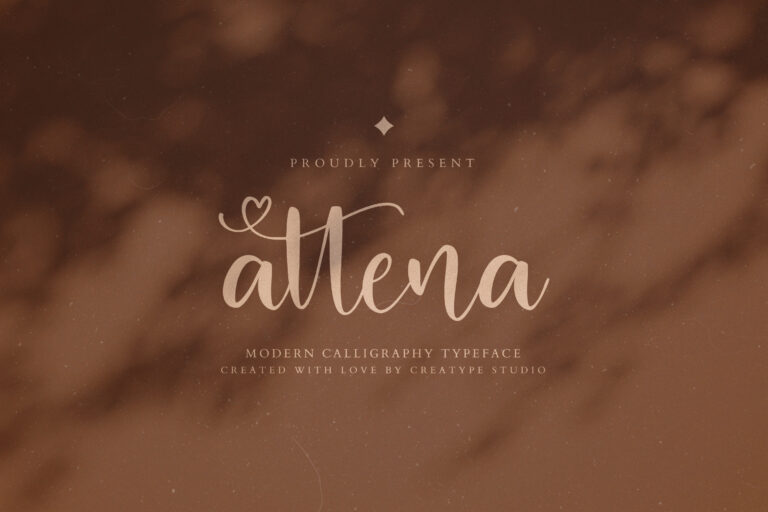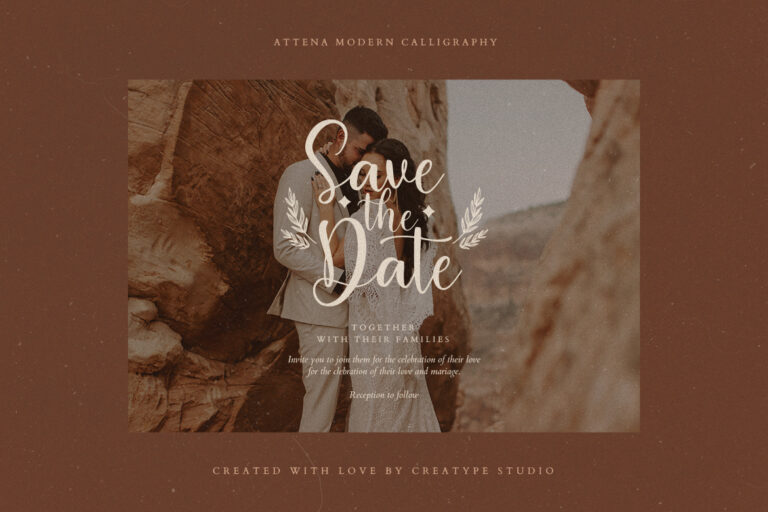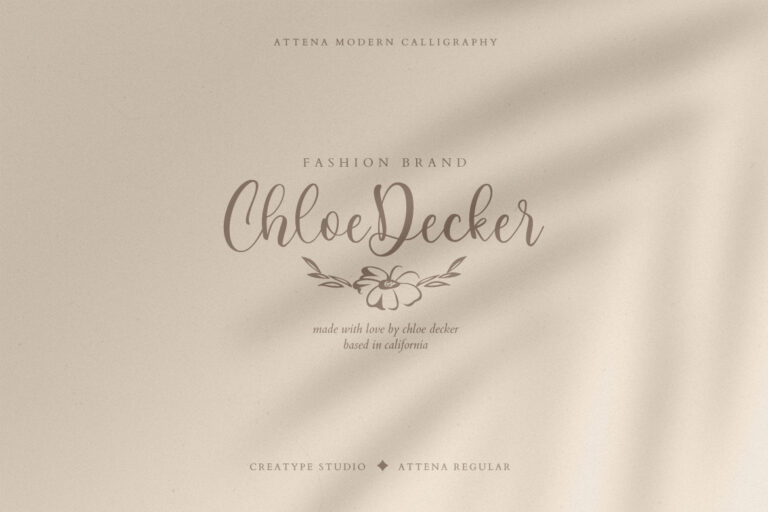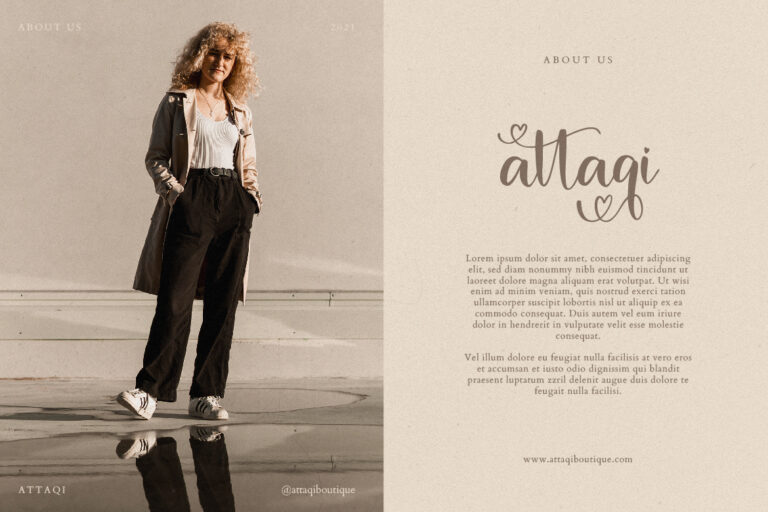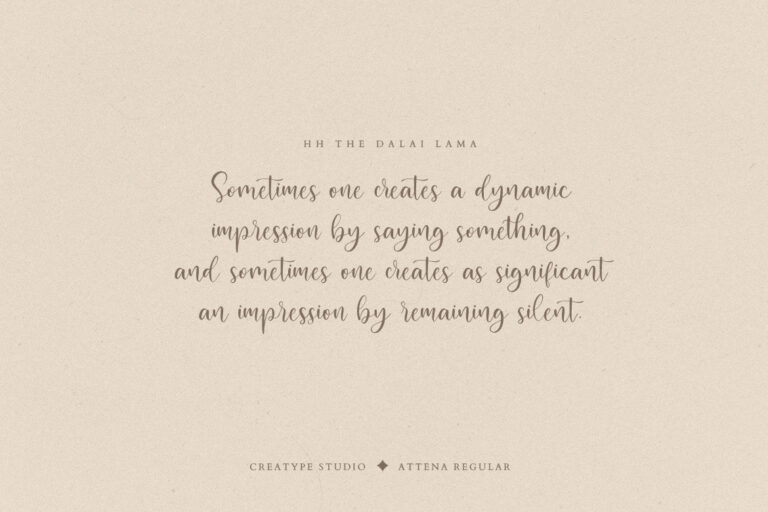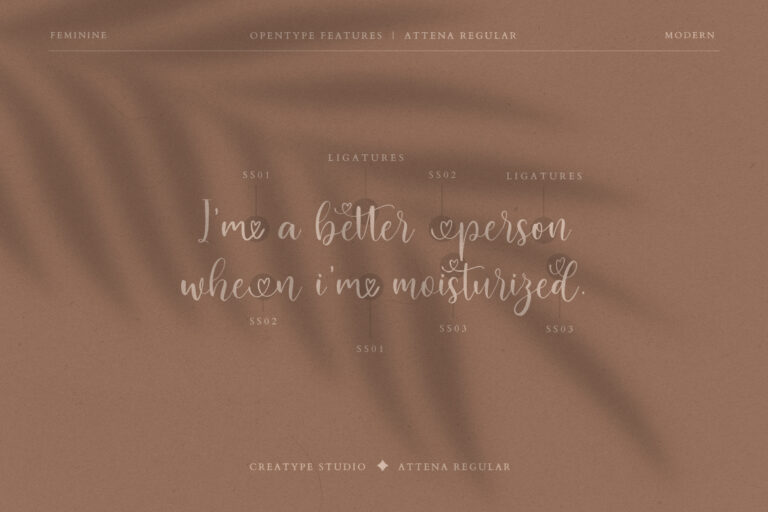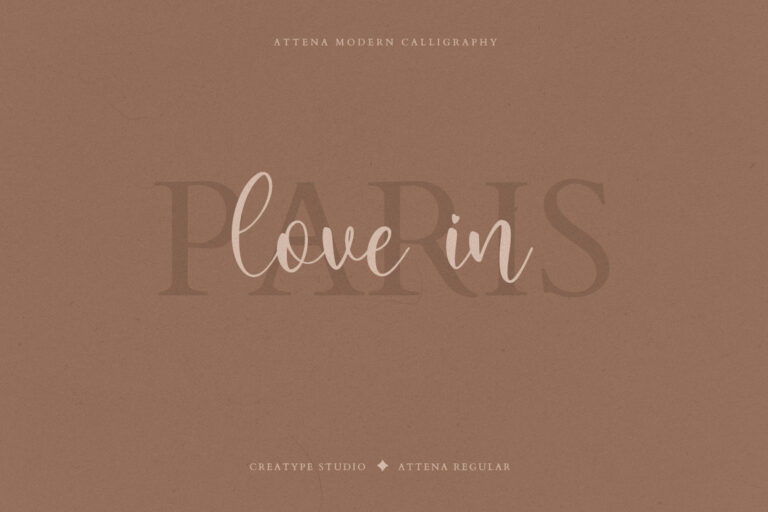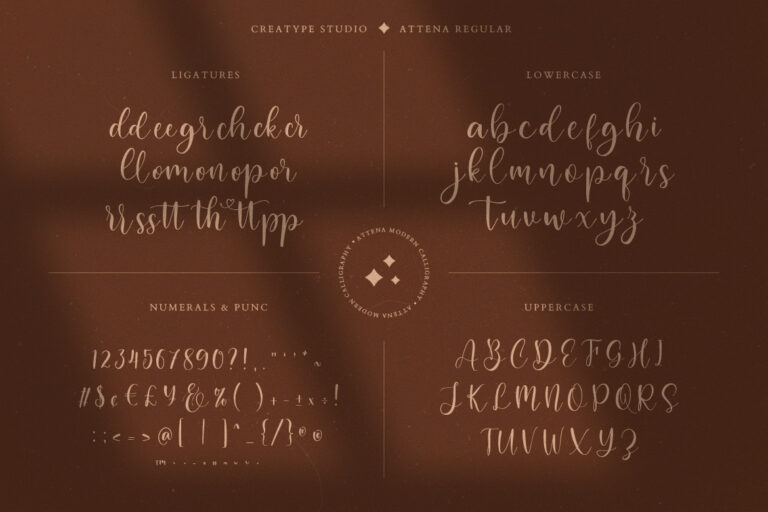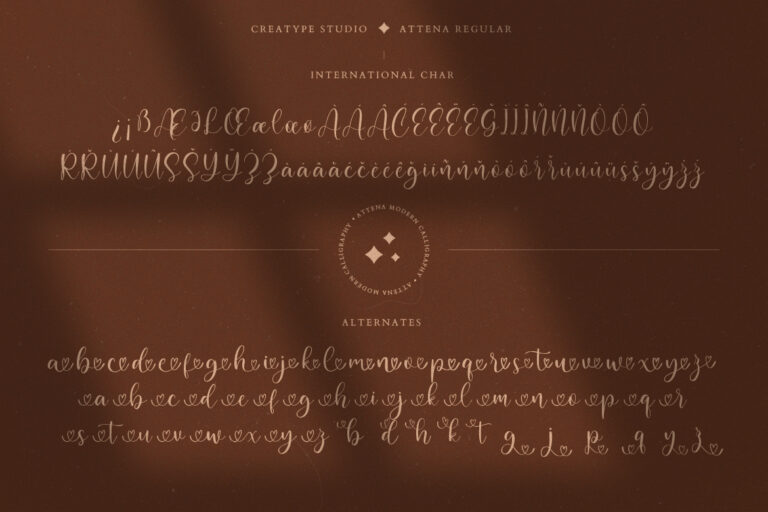
Attena Modern Calligraphy
Attena Modern Calligraphy is a modern calligraphy script font with a love swash effect on each font. Attena is made of a heart full of love. There are 63 alternatives and 17 ligatures for the Attena font, which are sure to make your project look impeccable and extraordinary.